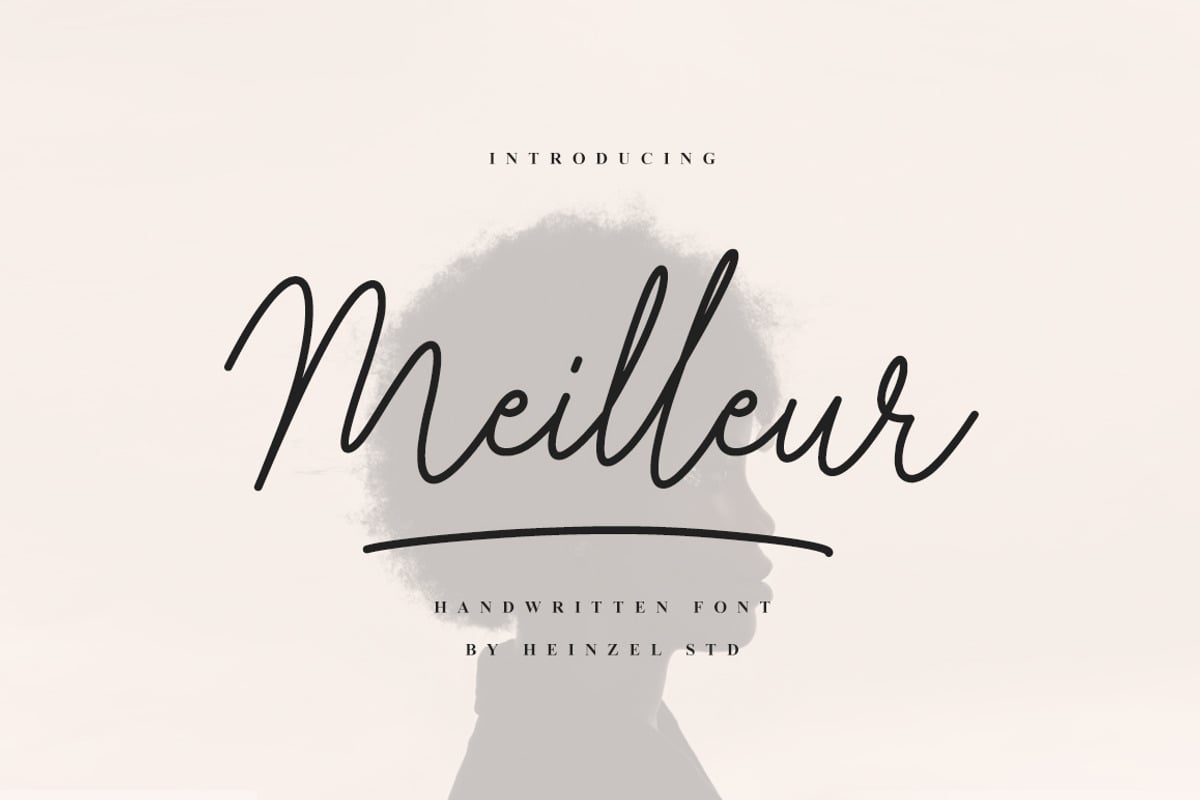
Meilleur - Handwritten Font
Meilleur is the elegant handwritten font that makes every design feel personal, polished, and unforgettable.
With its flowing curves and timeless style, Meilleur brings an incredibly distinct handwritten touch to any project. Fall in love with its graceful character and use it to create spectacular designs that truly stand out.
This typeface looks stunning across a wide range of applications, including:
- Wedding invitations
- Thank you cards
- Quotes and greeting cards
- Logos and business cards
- Any design calling for an authentic handwritten aesthetic
Meilleur Features:
- Ligatures